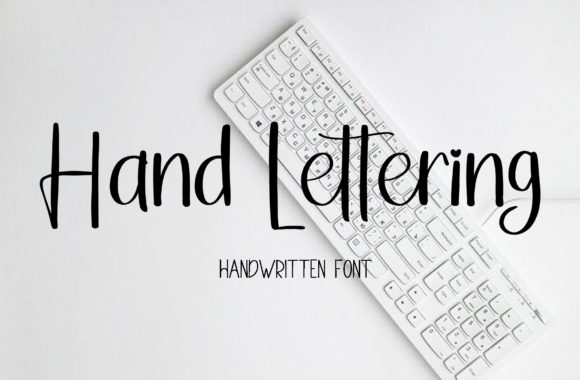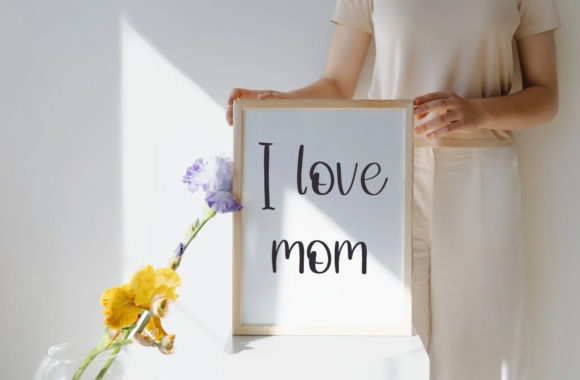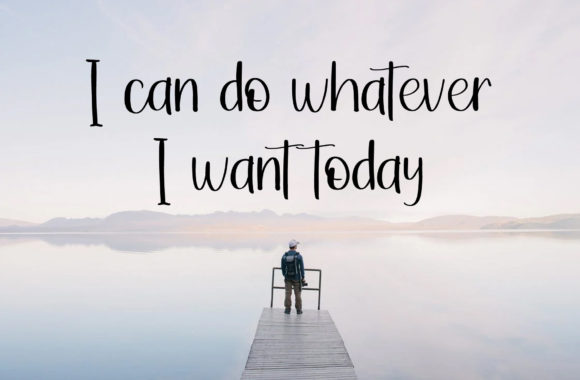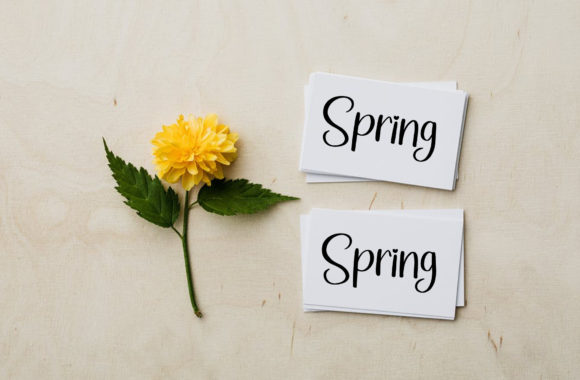
Hand Lettering Font
About the Hand Lettering Font
Experience the unique personality of Hand Lettering Font, a font designed for impact. Hand Lettering is a free-flowing script font created for packaging products, invitation cards, flyers, mockups, event posters, and anything else that requires high-quality vibes. It has a beautiful and balanced character, that fits well with the large design pool.
Hand Lettering excels in headline use, short text blocks on packaging, and as a design element in posters or invitations. Its expressive nature makes it ideal for brands aiming for a handcrafted, artisanal feel. Avoid using it for body copy or lengthy paragraphs; its script style is not easily legible in extended text formats. Similarly, it’s less suitable for UI applications requiring high readability.
This font’s personality is friendly and approachable yet sophisticated. It projects a sense of warmth and authenticity.
Pairing it with a clean sans-serif like Open Sans for body text or a geometric sans-serif like Montserrat for supporting information creates a strong visual contrast and enhances readability. For a more luxurious feel, consider pairing it with a subtle serif like Garamond.